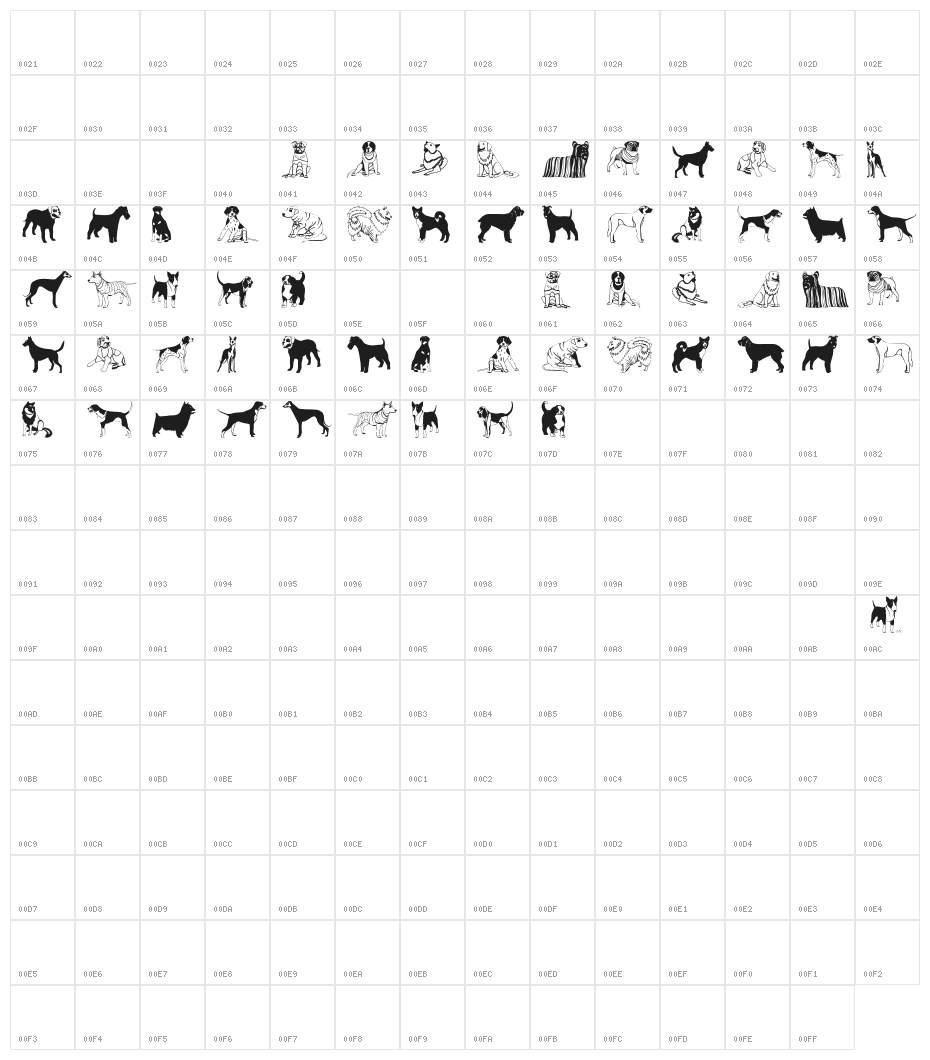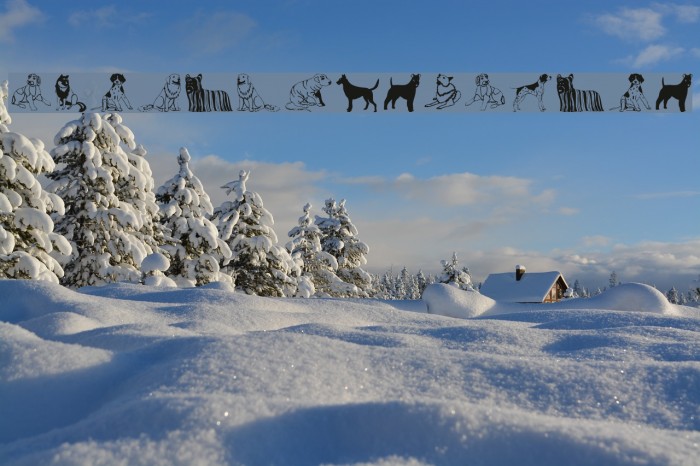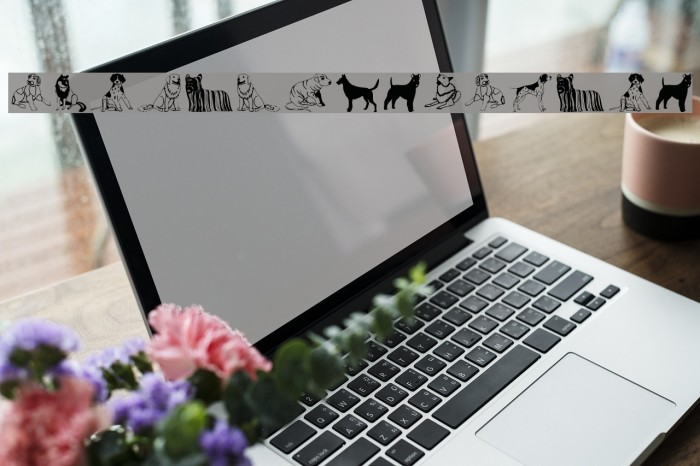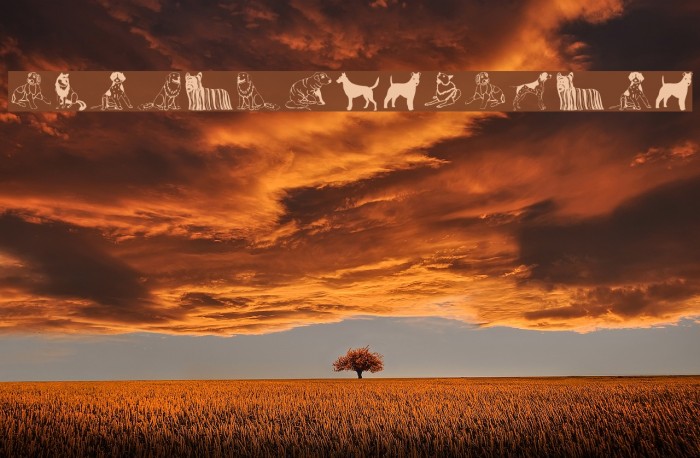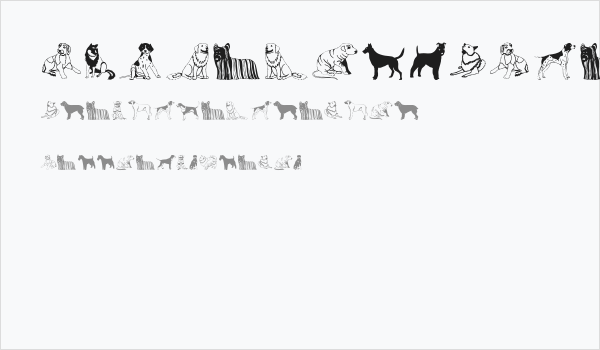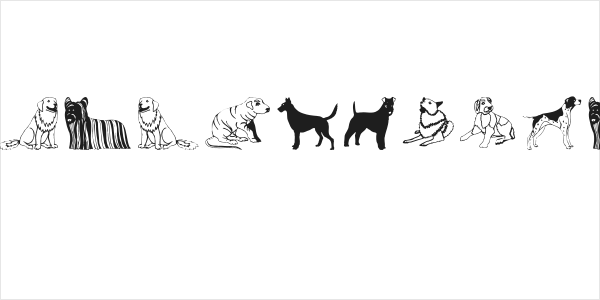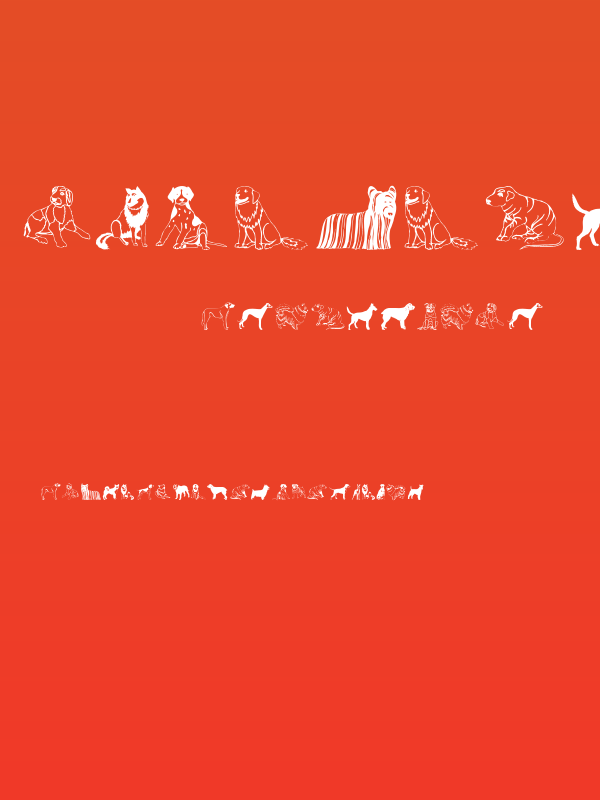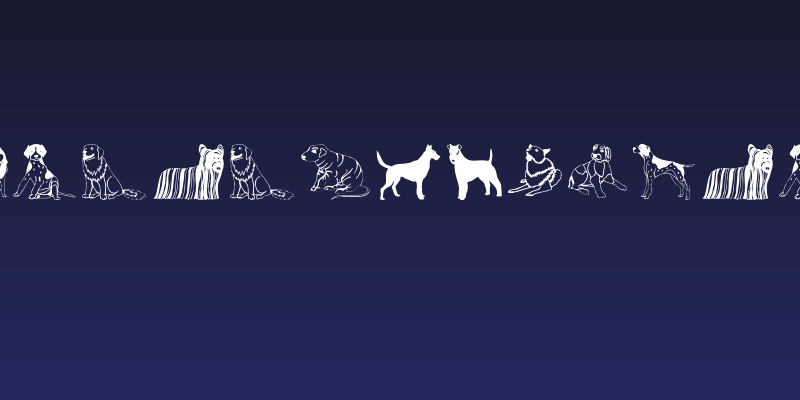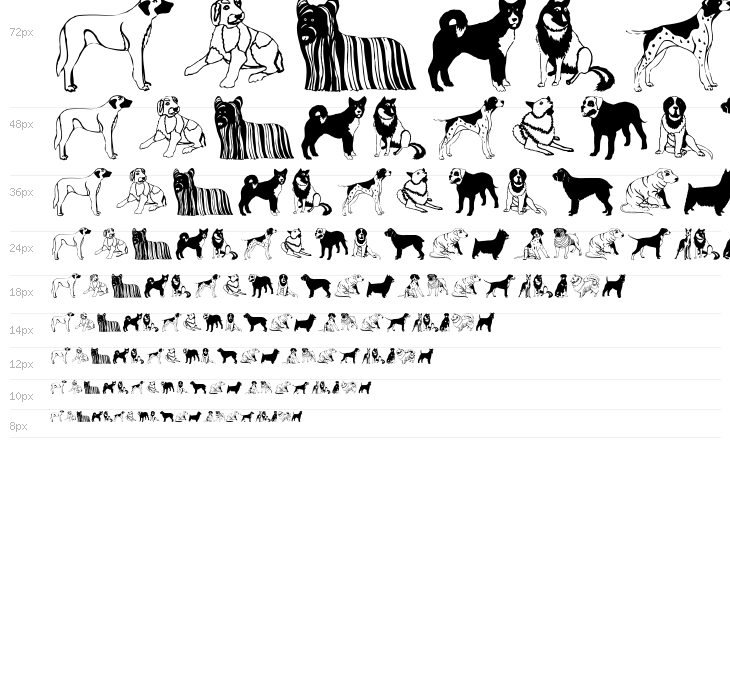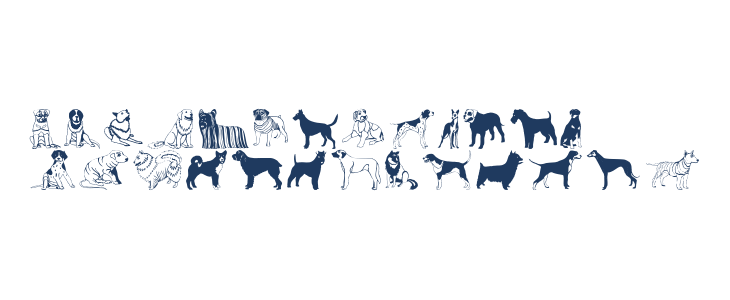
HundeDogsChiens Font
HundeDogsChiens Description
A decorative dingbat font featuring detailed, hand-drawn illustrations of various dog breeds in both outline and solid fill styles. Each character represents a different dog pose or breed, offering a playful and illustrative look.
| Overall Style | Decorative, Playful, Illustrative |
| Use Case | Logos, Decorative elements, Themed graphics, Educational visuals |
| Proposed Projects | Pet branding, childrenΓ’β¬β’s books, greeting cards, educational materials, decorative posters. |